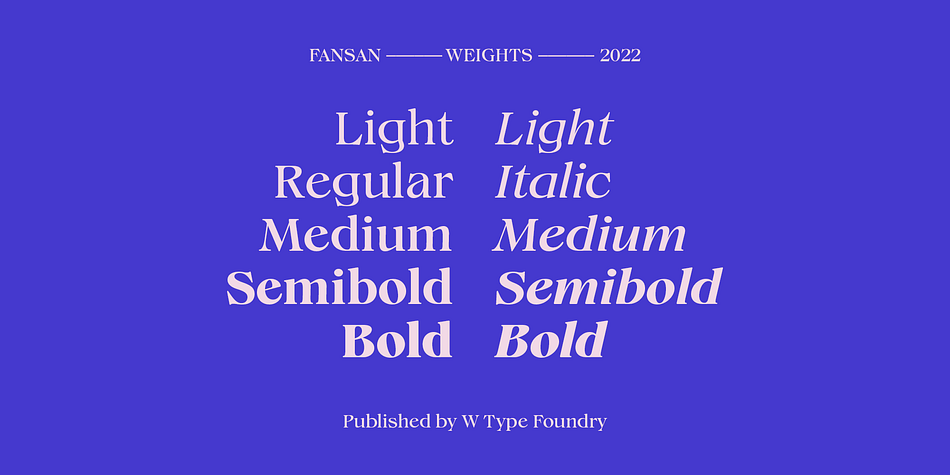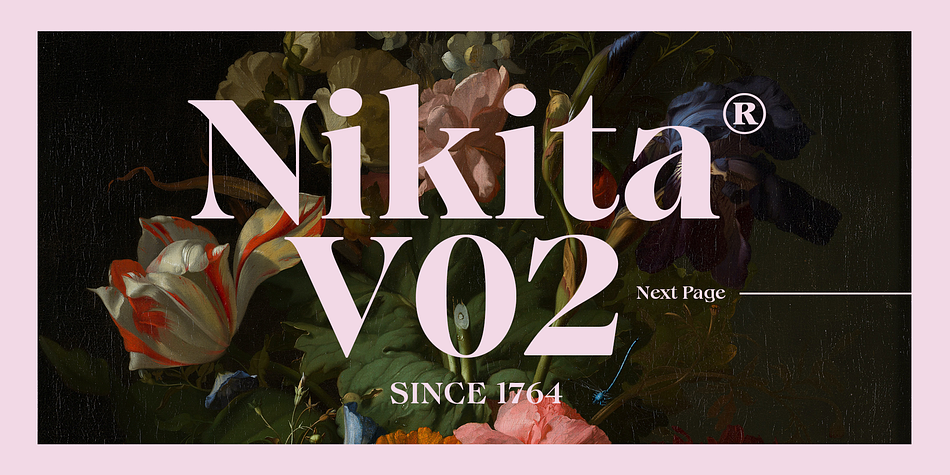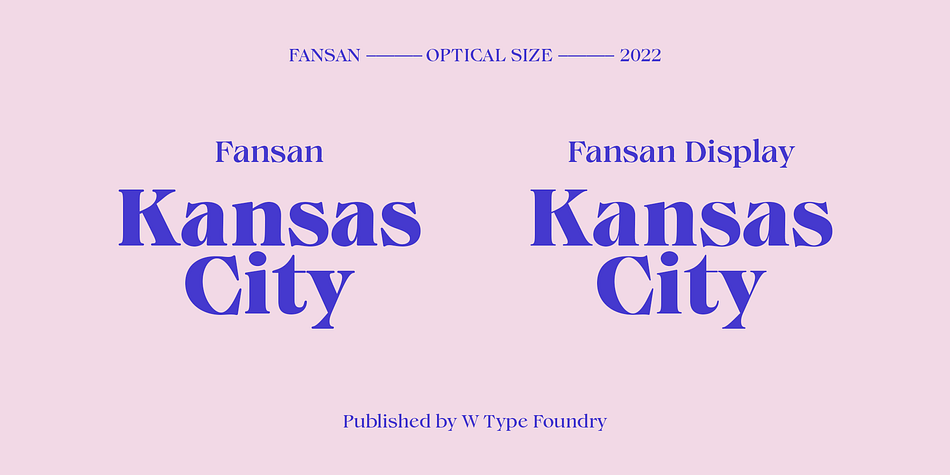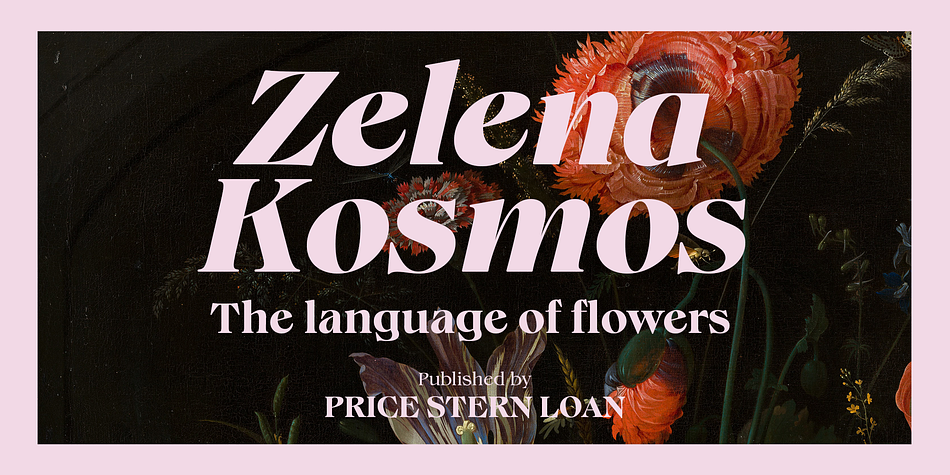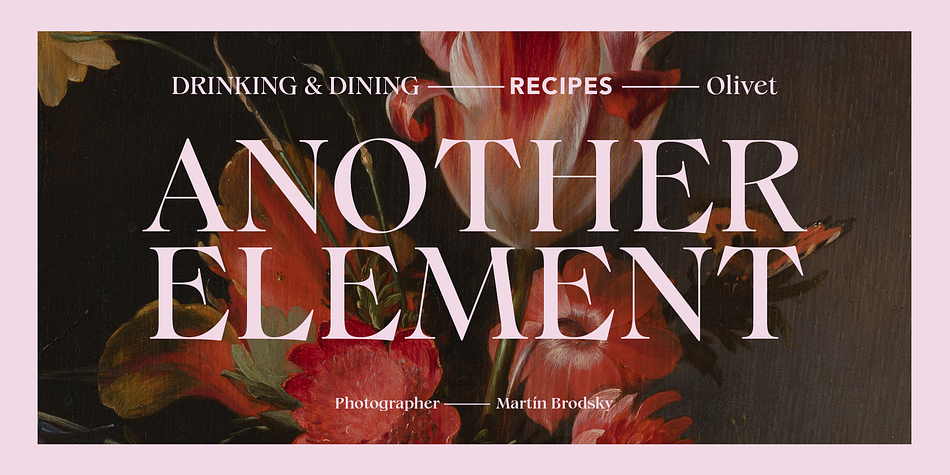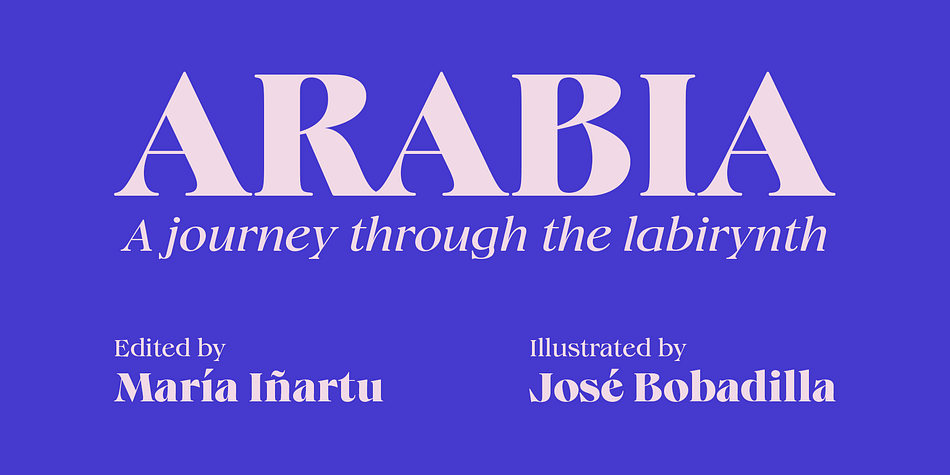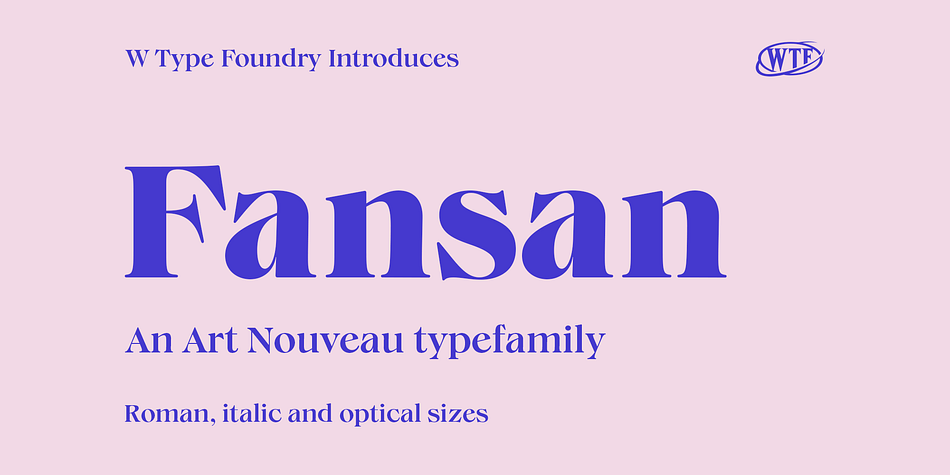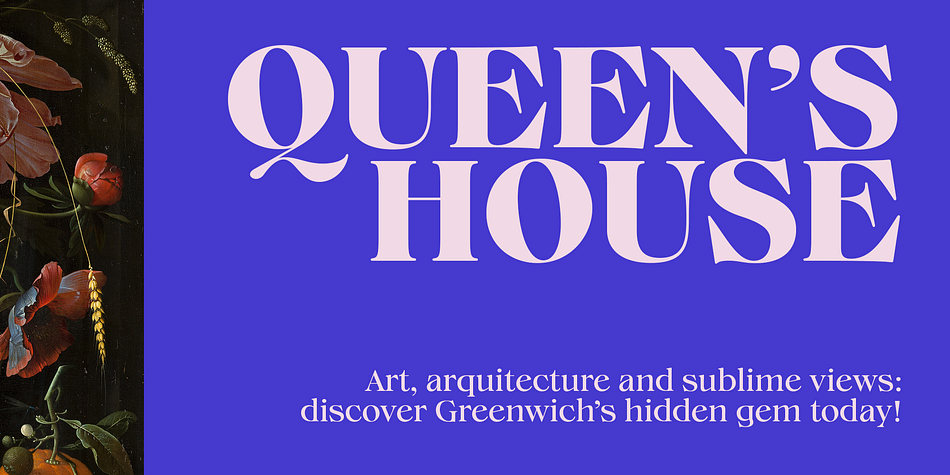
Fansan
Designed by Diego Aravena, Fansan is a display serif font family. This typeface has twenty styles and was published by W Type Foundry.
Organic and sublime, Fansan is an Art Nouveau type family that includes roman, italic, and optical sizes. Its roots can be found in famous works such as Benguiat, Windsor, and Melbourne — worldwide typographic references which all have a sense of being imperfectly appealing.
The aesthetic influence of Art Nouveau on Fansan can be seen in the top-heavy stress found in most characters. Applying this stress consistently throughout the character set was a significant challenge in the design of the family. The sharp terminals of numerous lowercase characters — including the a, f and g — provide a visual link between the upper and lowercase forms. As a result, Fansan is able to be elegant and pointed in its lighter weights, and playful and full of character in its heavier styles.
Fansan is ideally suited for use at display sizes where personality is needed.